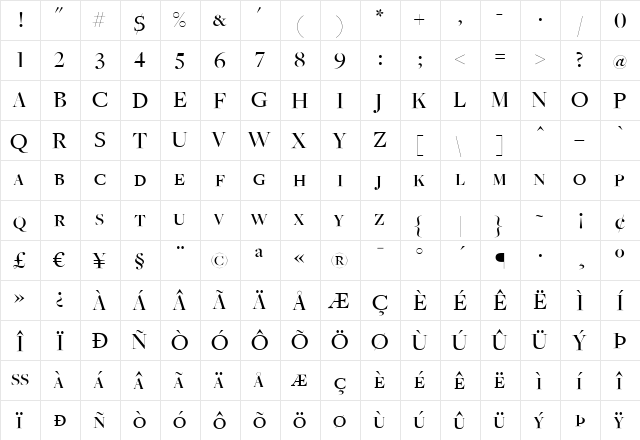
FreightBigMediumSC Regular
| Foundry | Joshua Darden & Phil's Fonts, Inc |
| Designer | Joshua Darden |
Design Context for FreightBigMediumSC Typeface
FreightBigMediumSC takes a measured approach to typography — its balanced proportions and neutral character make it a reliable workhorse for both digital and print work.